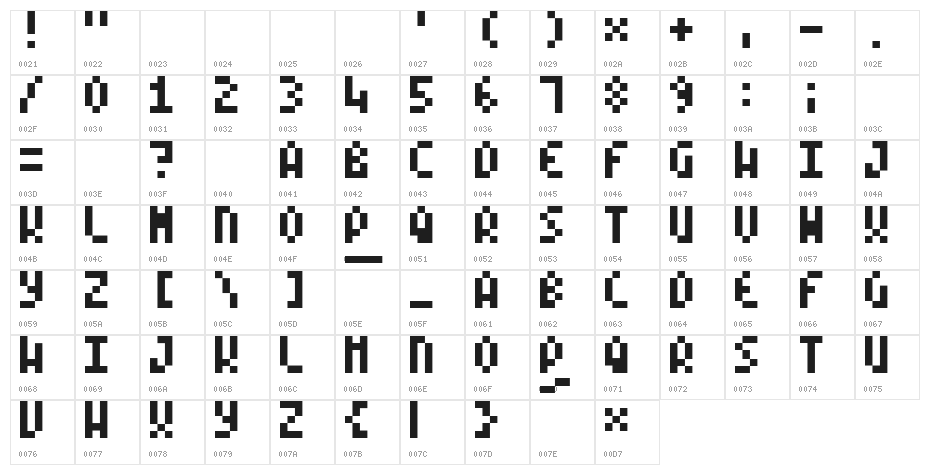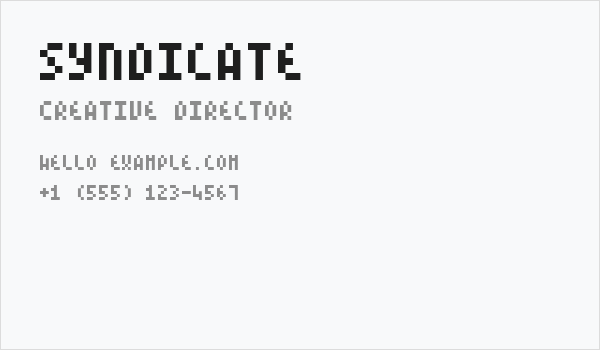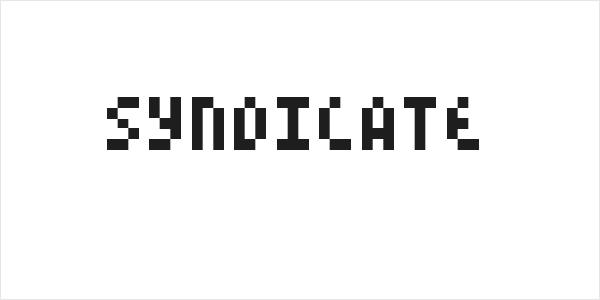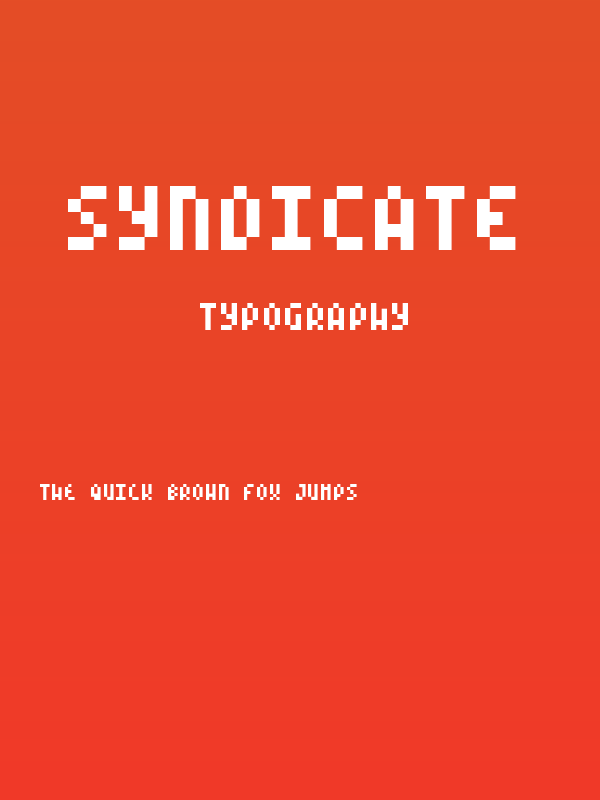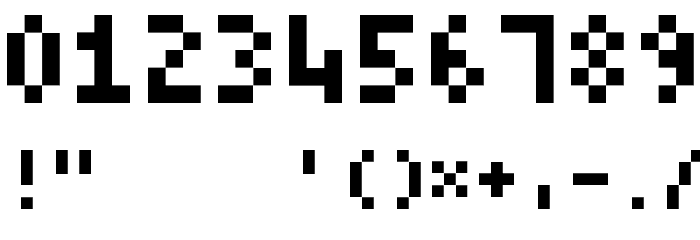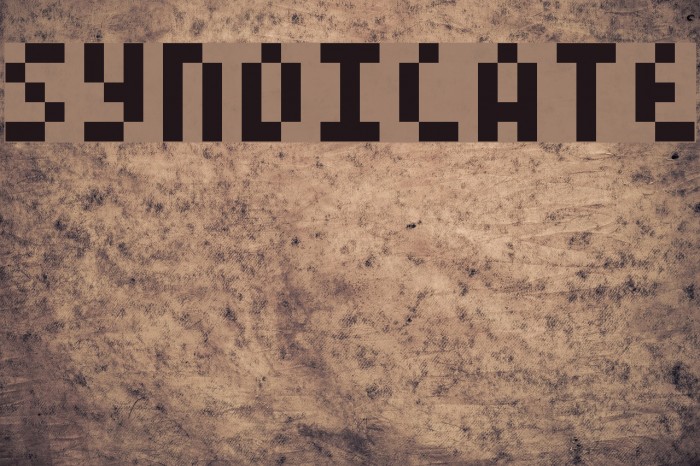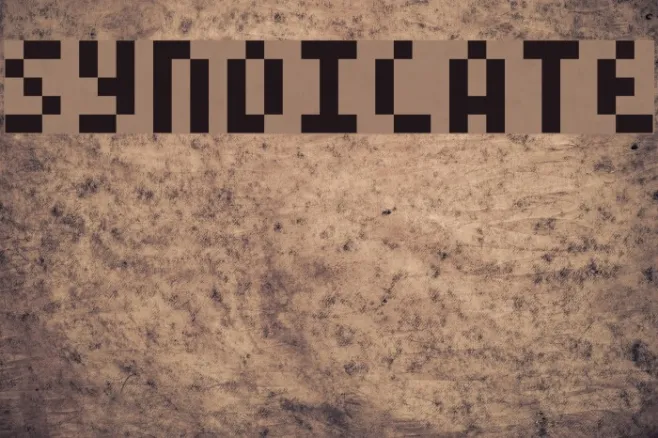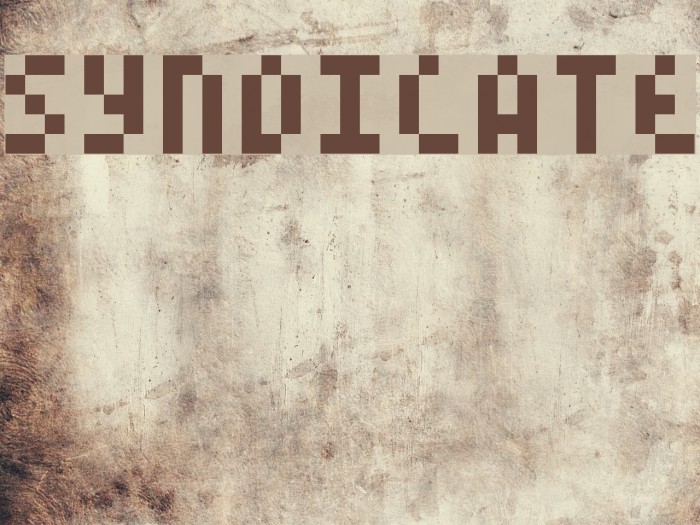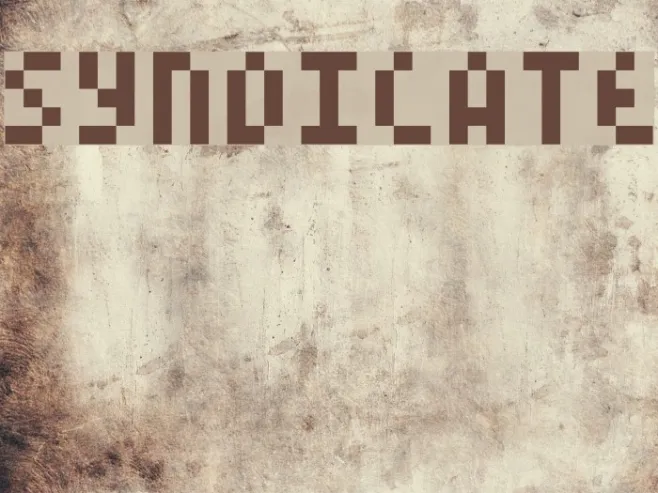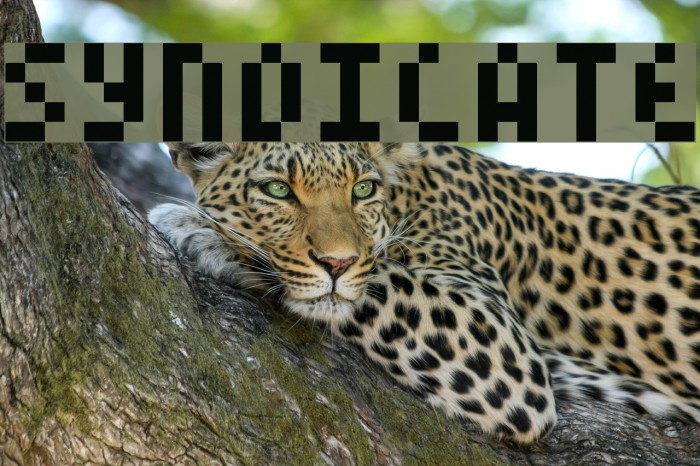
syndicate Font
syndicate Description
This font features a bold, pixelated design reminiscent of early digital displays and retro video games. Each character is constructed with a grid-like structure, giving it a blocky and geometric appearance. The uniformity in height and width across all characters creates a cohesive and structured look. The font maintains a consistent weight throughout, with no variation in stroke thickness, emphasizing its digital and mechanical aesthetic. The characters are evenly spaced, ensuring readability while maintaining the distinct pixelated style. This font is ideal for projects that aim to evoke nostalgia for classic arcade games or to create a tech-inspired, futuristic feel.
| Proposed Projects | Ideal for video game design, tech-themed posters, digital art, and retro-inspired branding. |